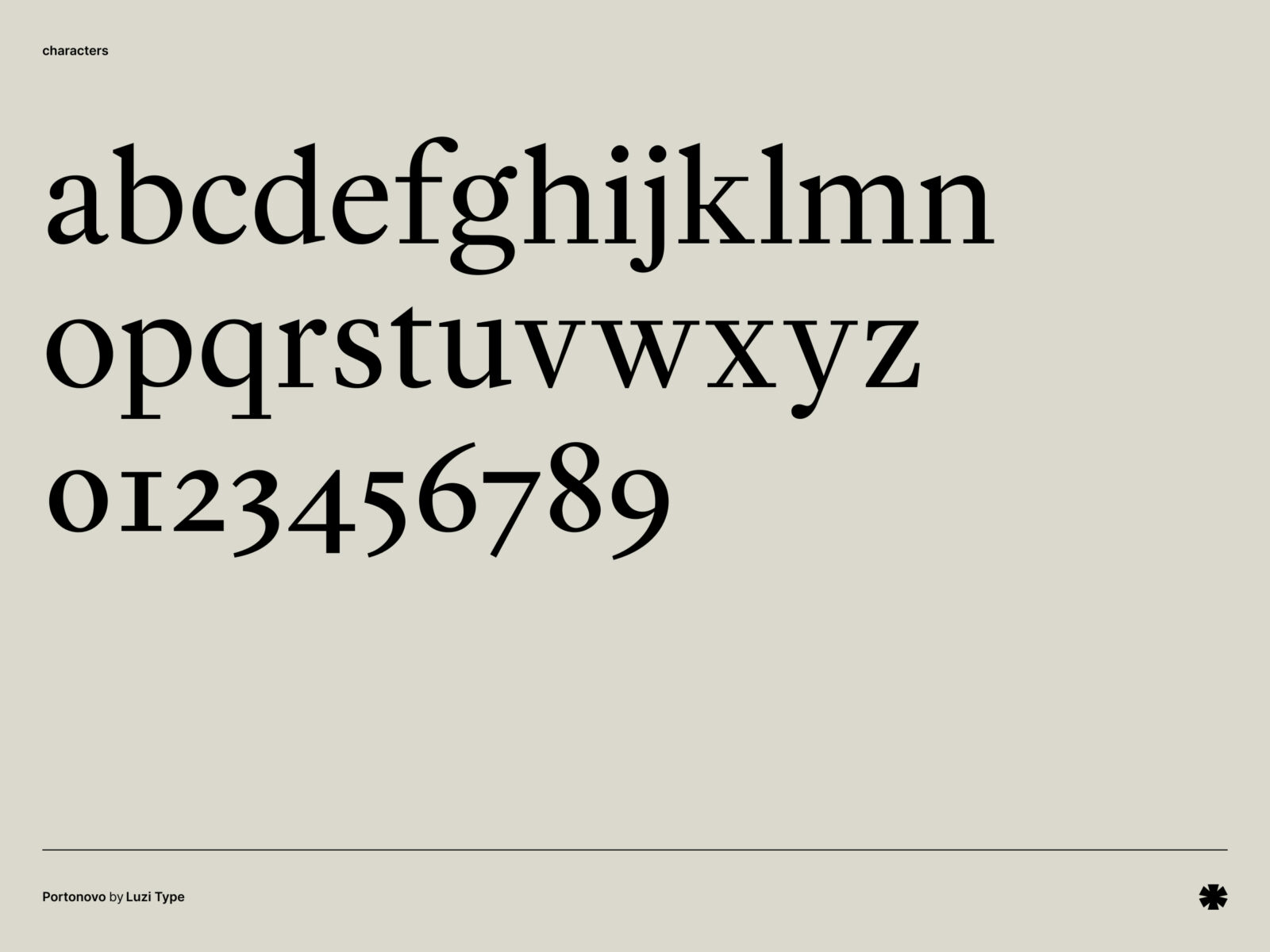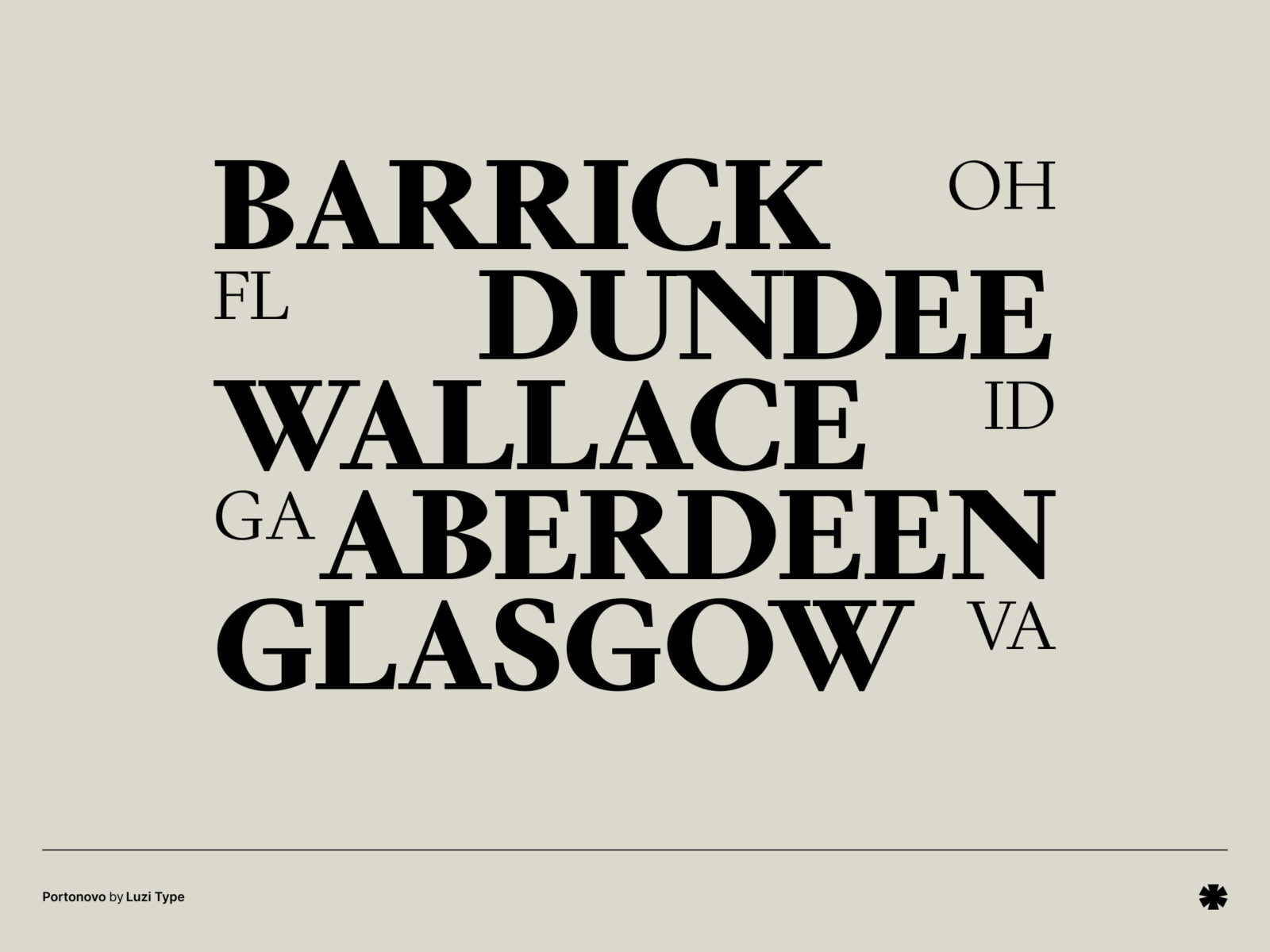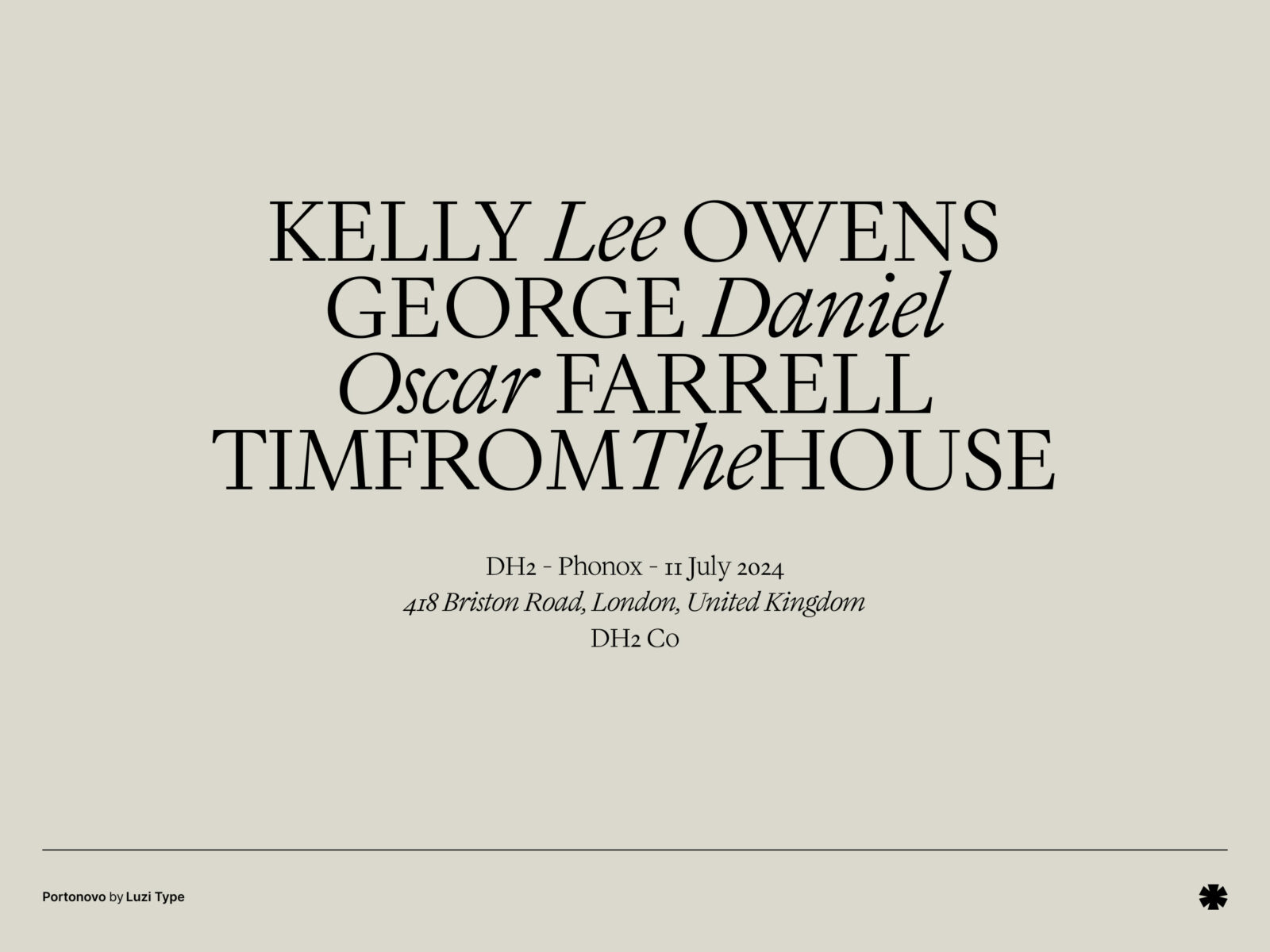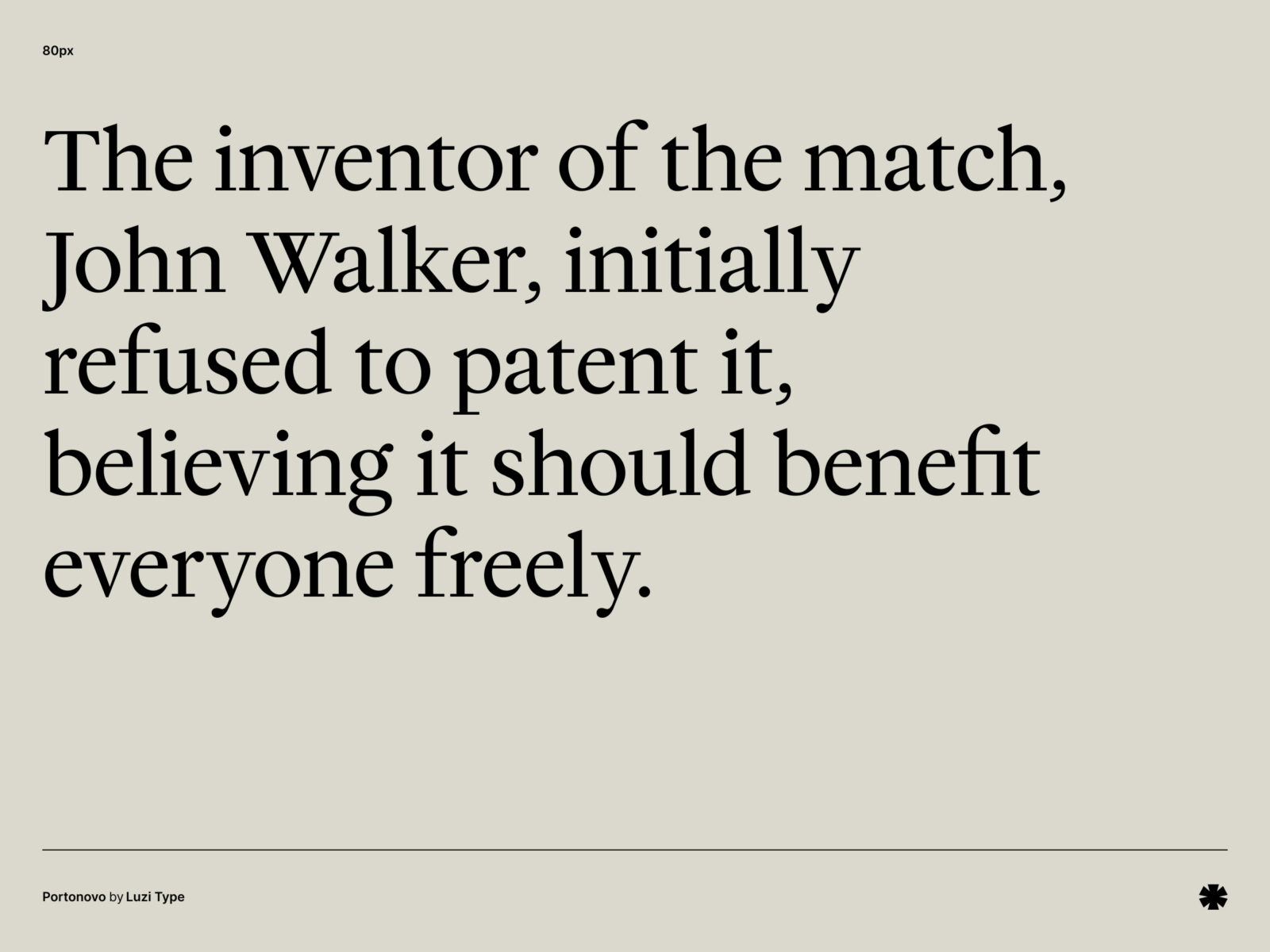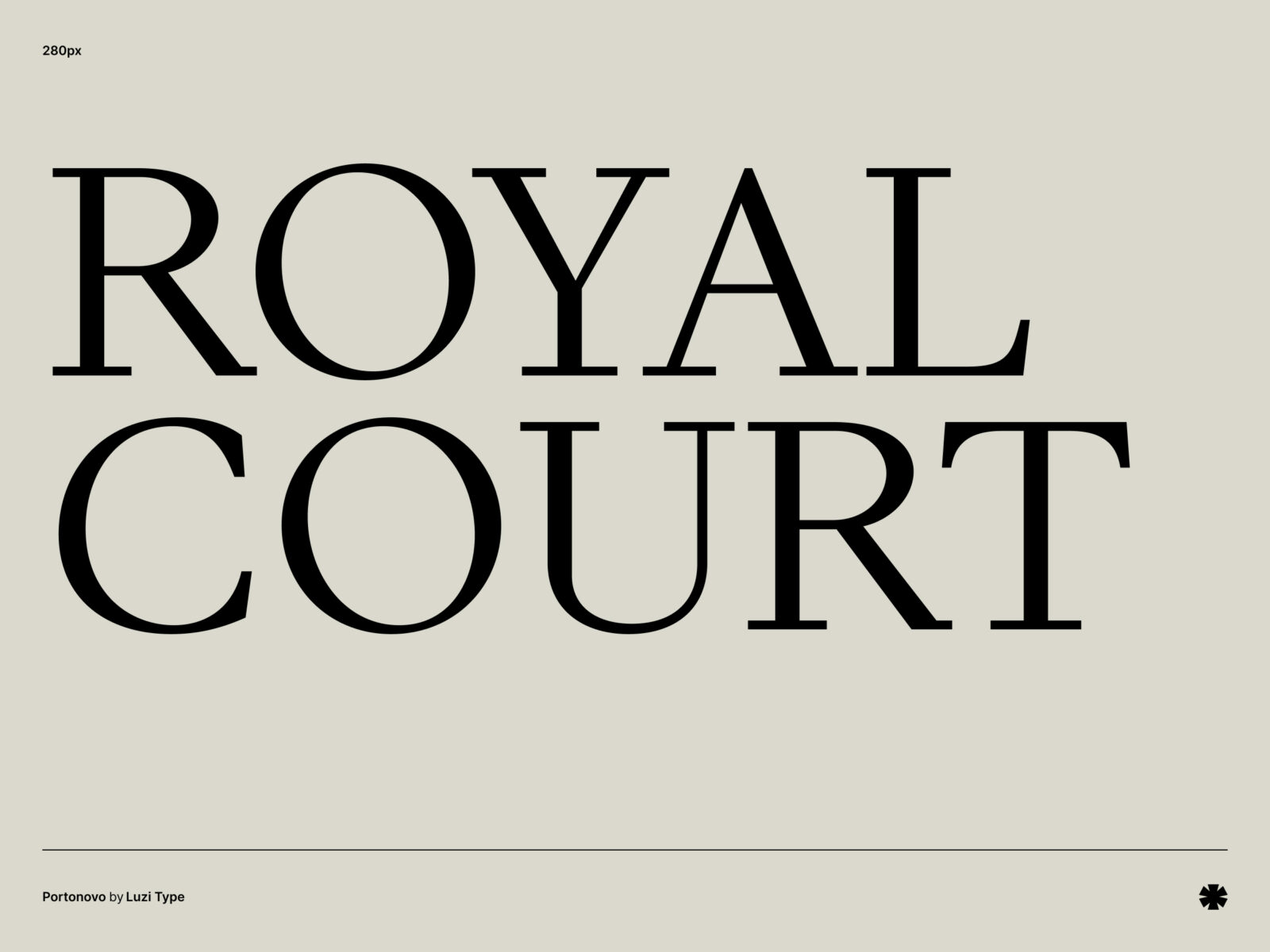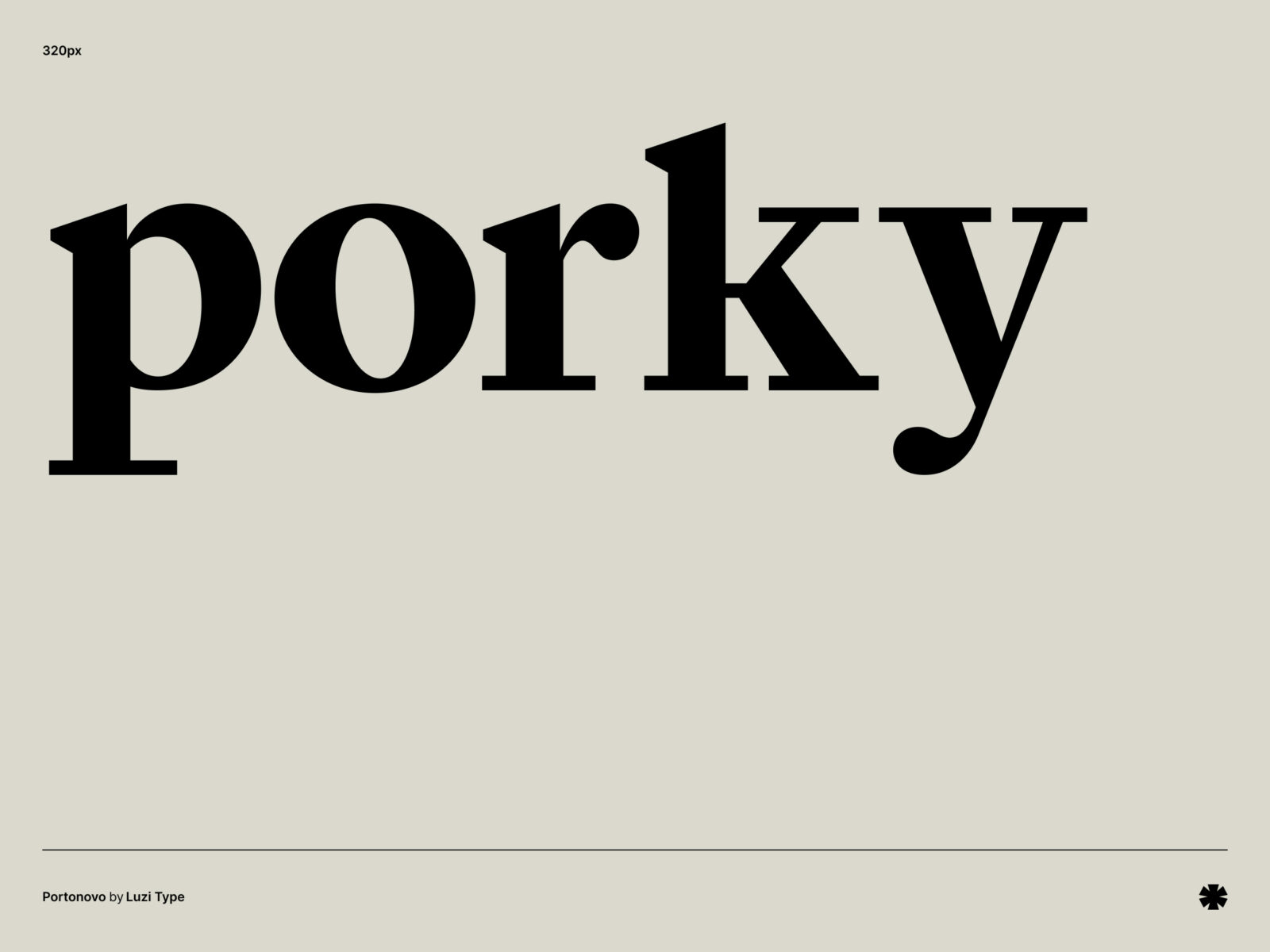
Portonovo is a digital revival inspired by the historic 1690 Martyrologium Romanum, blending the classical essence of early Garamond and Caslon with a streamlined, interpretative design that echoes the golden era of bookmaking.